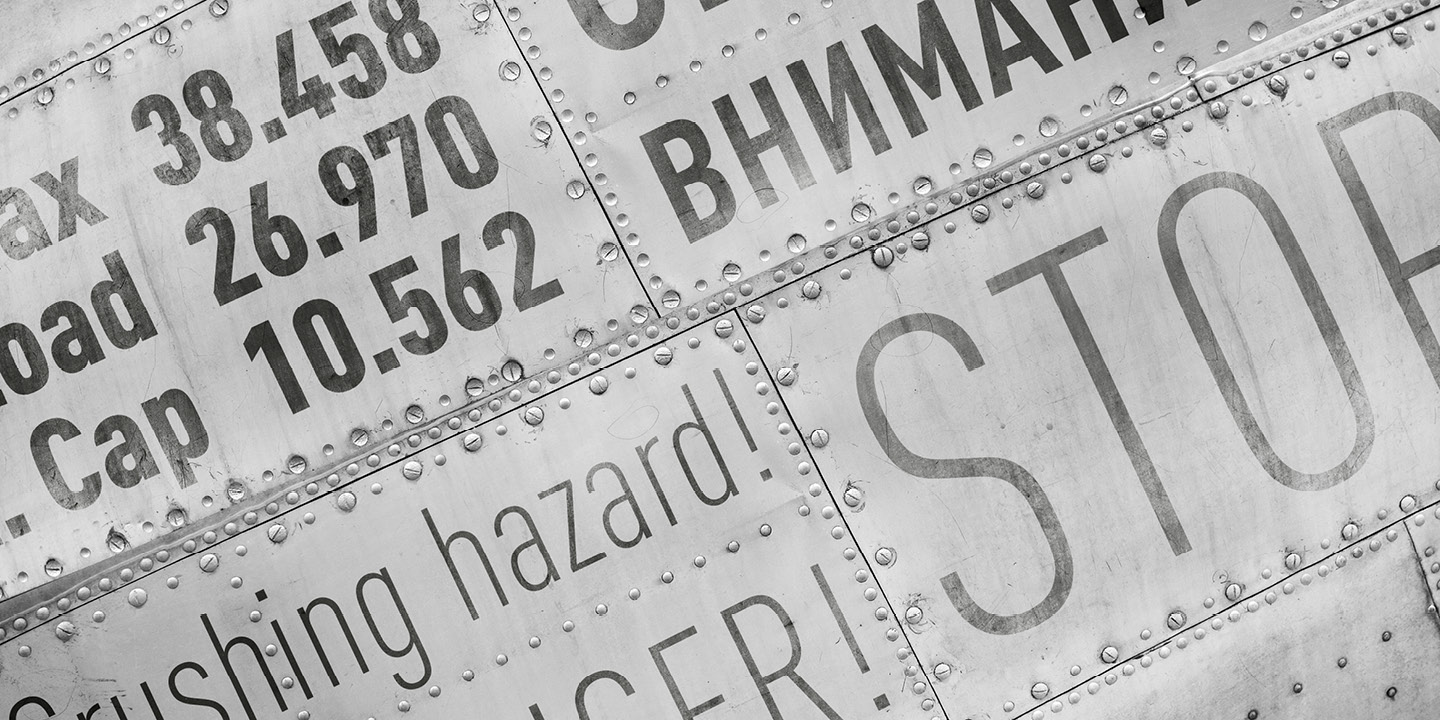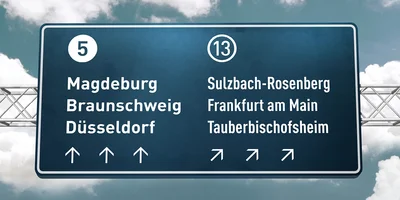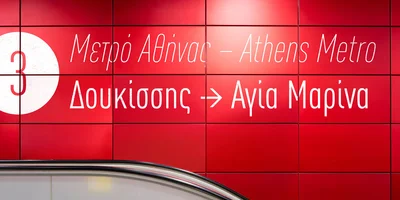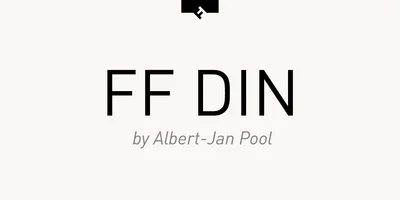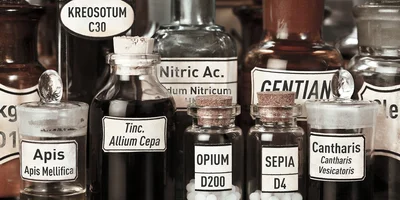
Barlow vs DIN
Choosing between DIN and Barlow comes down to whether you want the original tone or a practical open-source substitute. With 78% similarity, Barlow brings California infrastructure aesthetics that parallel DIN's German signage heritage. Both are comfortable in signage and wayfinding contexts, where clarity beats personality.
| Feature | Barlow | DIN |
| Weights | 100, 200, 300, 400, 500, 600, 700, 800, 900 | Multiple |
| Language Support | latin, latin-extended, vietnamese | latin, latin-extended |
Performance Comparison
| Metric | Barlow | DIN |
| Score | 63/100 | N/A |
| Weights | 9 | N/A |
| Italics | Yes | N/A |
| Variable Font | No | N/A |
| Language Groups | 3 | N/A |
| x-Height Ratio | 0.506 | N/A |
| Cap Height Ratio | 0.7 | N/A |
Recommended: Barlow
- Shares DIN's readable character
- Particularly suited for wayfinding systems and data visualization
- 9 weight options for flexible typography
- Delivers a clean, modern, simple aesthetic
- Popular in healthcare-medical and enterprise-corporate design
Consider: DIN
- Designed specifically for signage and technical